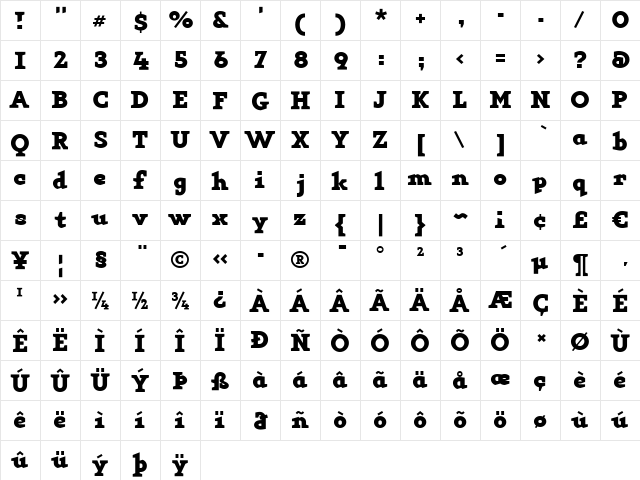
Key Bold
Design Context for Key Typeface
Key offers clean, dependable letterforms without strong stylistic allegiance, making it a practical choice for designers who need flexibility. The heavy weight commands attention and anchors typographic hierarchies.